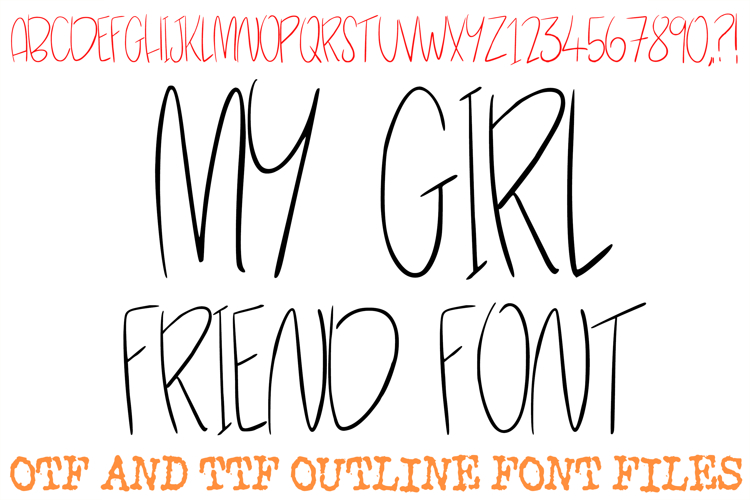
Add a heartfelt touch to your designs with the My Girl Friend Font! This slender, hand-drawn typeface features tall, elegant characters that capture the charm of a sweet, handwritten note. It is the perfect choice for delicate branding, romantic wedding favors, personalized gift tags, and whimsical social media graphics.
The minimalist and airy feel of this font brings a sense of intimacy and authenticity to your work. Whether you're creating custom stickers, digital planner layouts, or heartfelt greeting cards, the My Girl Friend Font offers a clean yet artisan look that feels unique
Why Your Designs Will Stand Out:
Tall & Slender Aesthetic: Each character is crafted with high-reaching, thin strokes for a modern, feminine silhouette.
Handwritten Authenticity: The slightly irregular line work provides a genuine, non-digital feel that mimics natural penmanship.
Versatile Design Application: Ideal for everything from minimalist logos to playful nursery art and romantic "save the date" announcements.